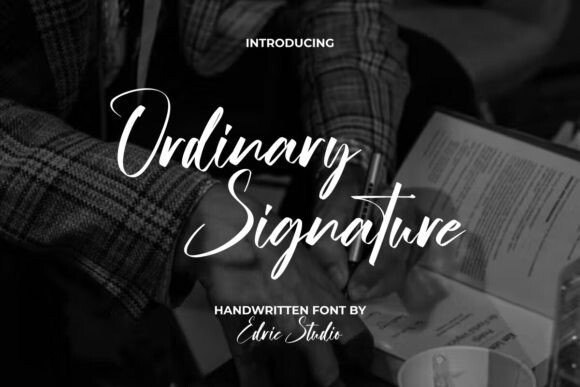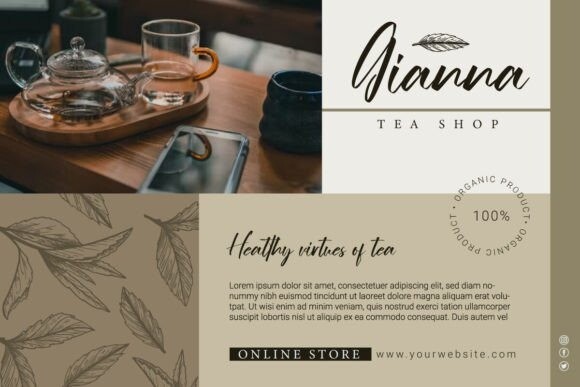
Ordinary Signature Font
Ordinary Signature Font is a sophisticated script font that captures elegance and refinement. Its flowing strokes and delicate curves evoke a sense of grace and style, making it perfect for branding, invitations, and elegant designs. With its timeless appeal, Ordinary Signature adds a touch of sophistication to any project.